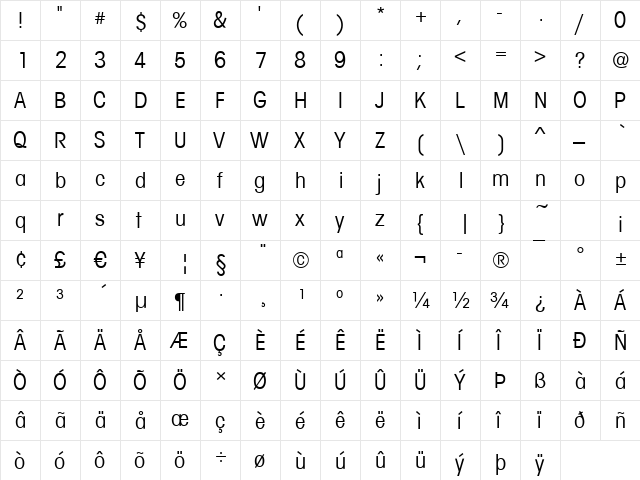
Avignon-Cd Regular
Design Context for Avignon-Cd Typeface
Avignon-Cd offers clean, dependable letterforms without strong stylistic allegiance, making it a practical choice for designers who need flexibility.
Pro Tip: Use Avignon-Cd in both headline and body roles to test its range before committing to a single application.